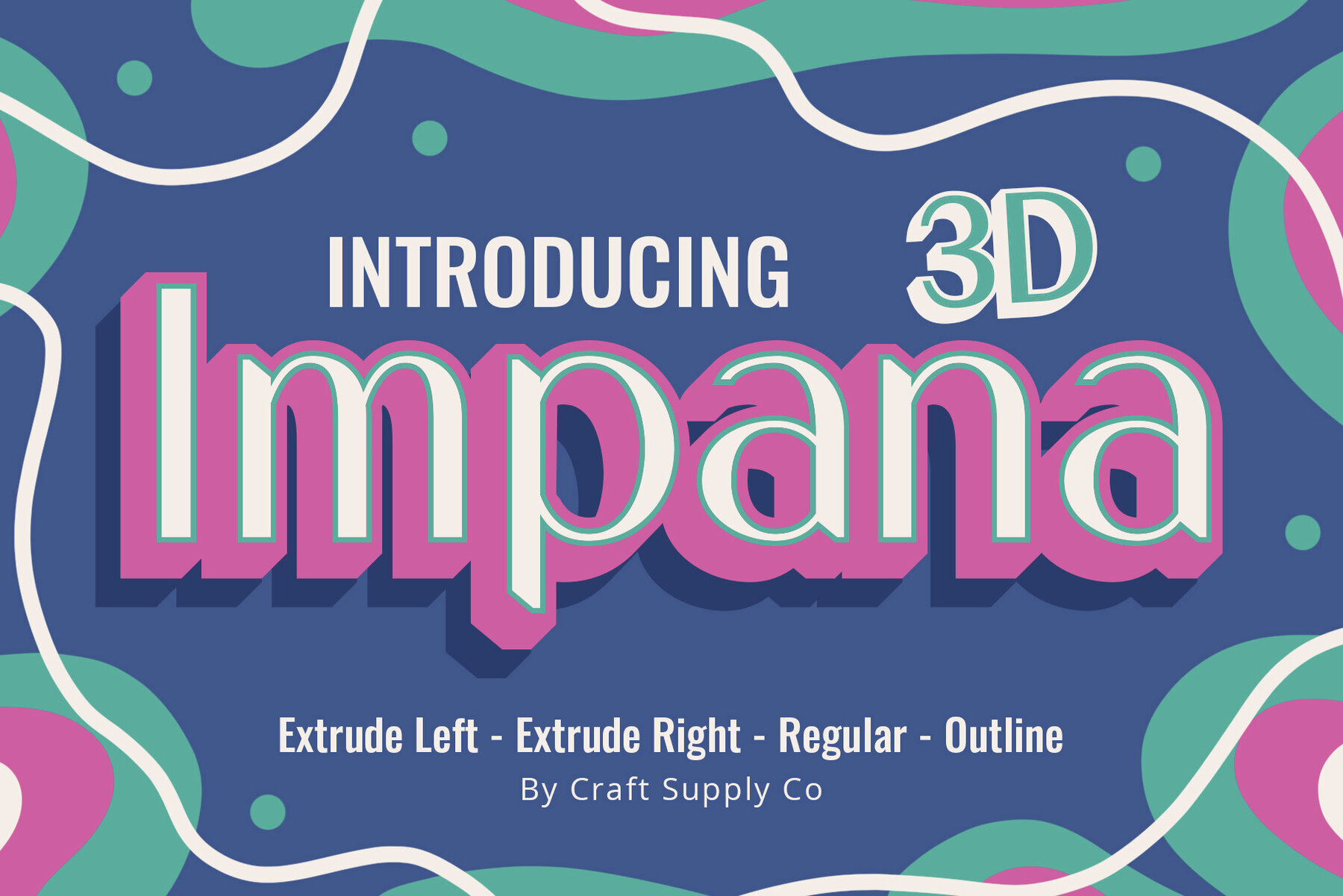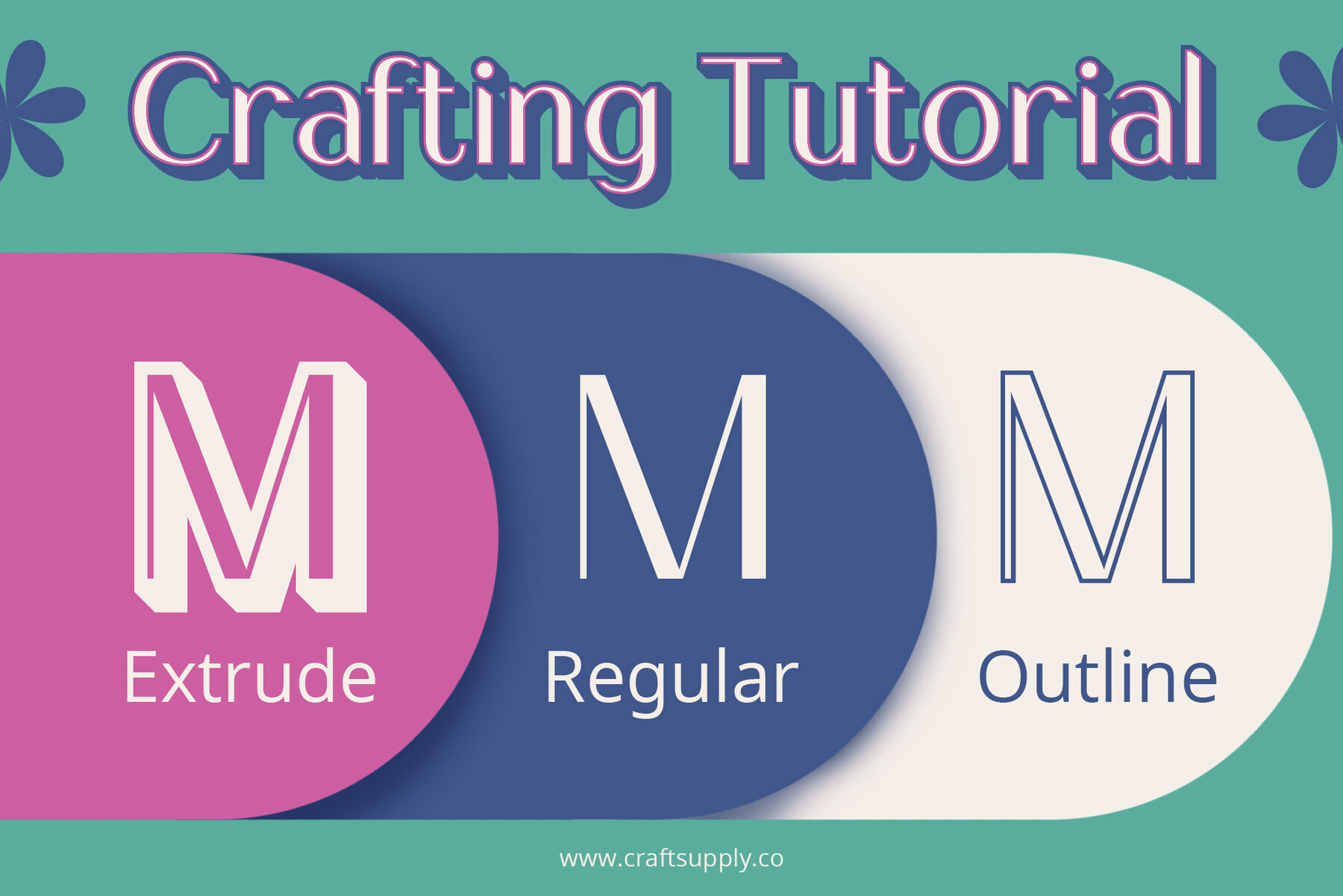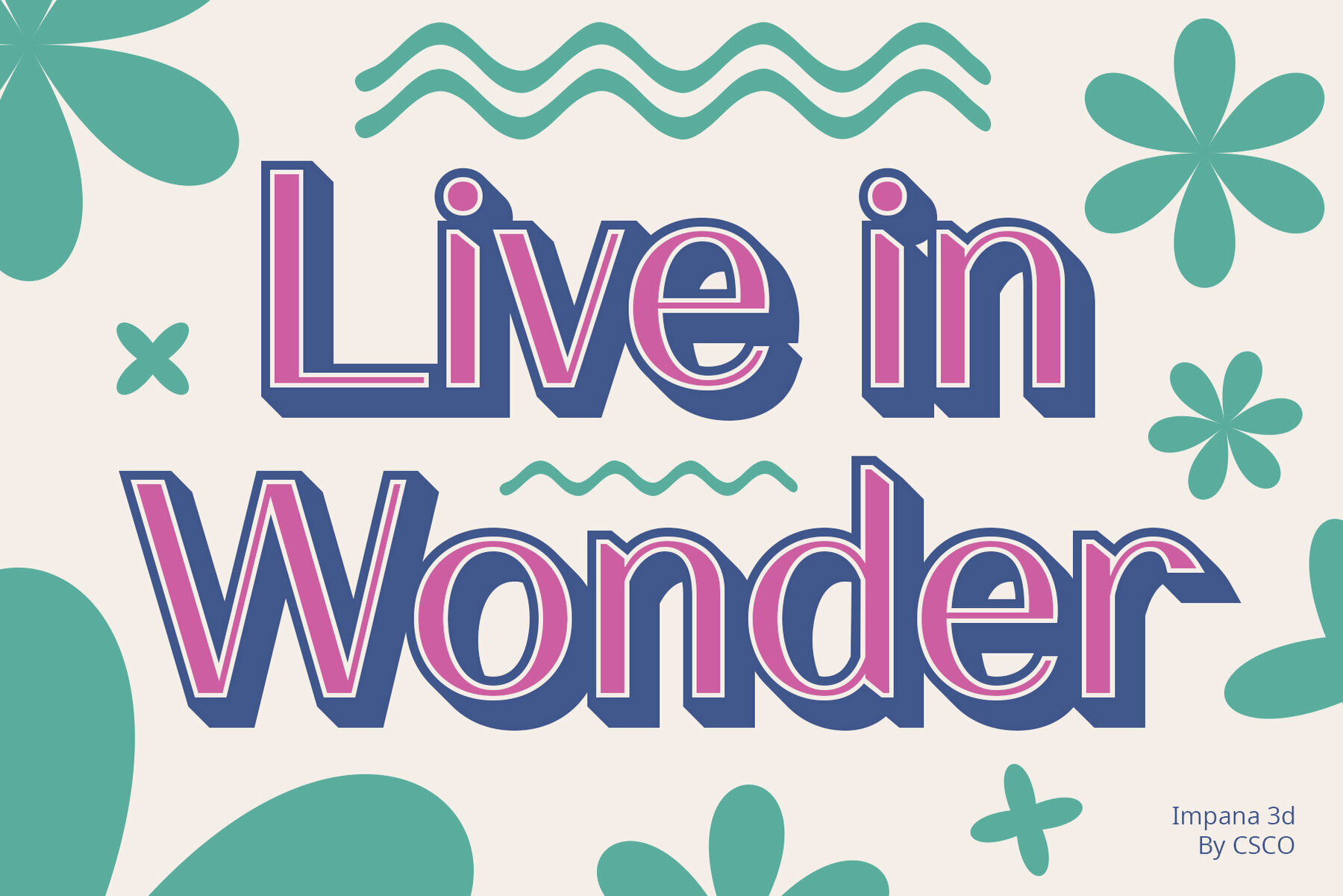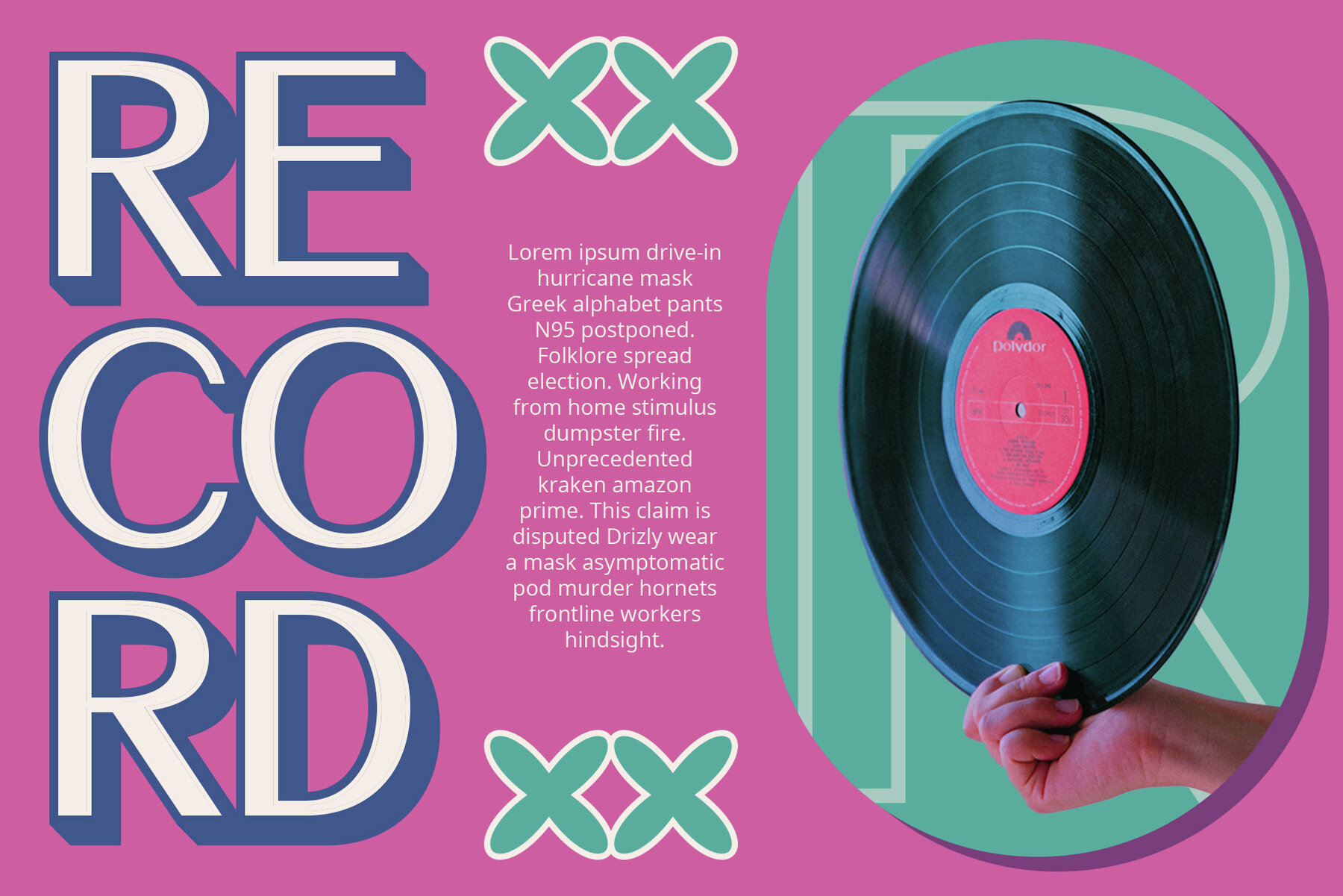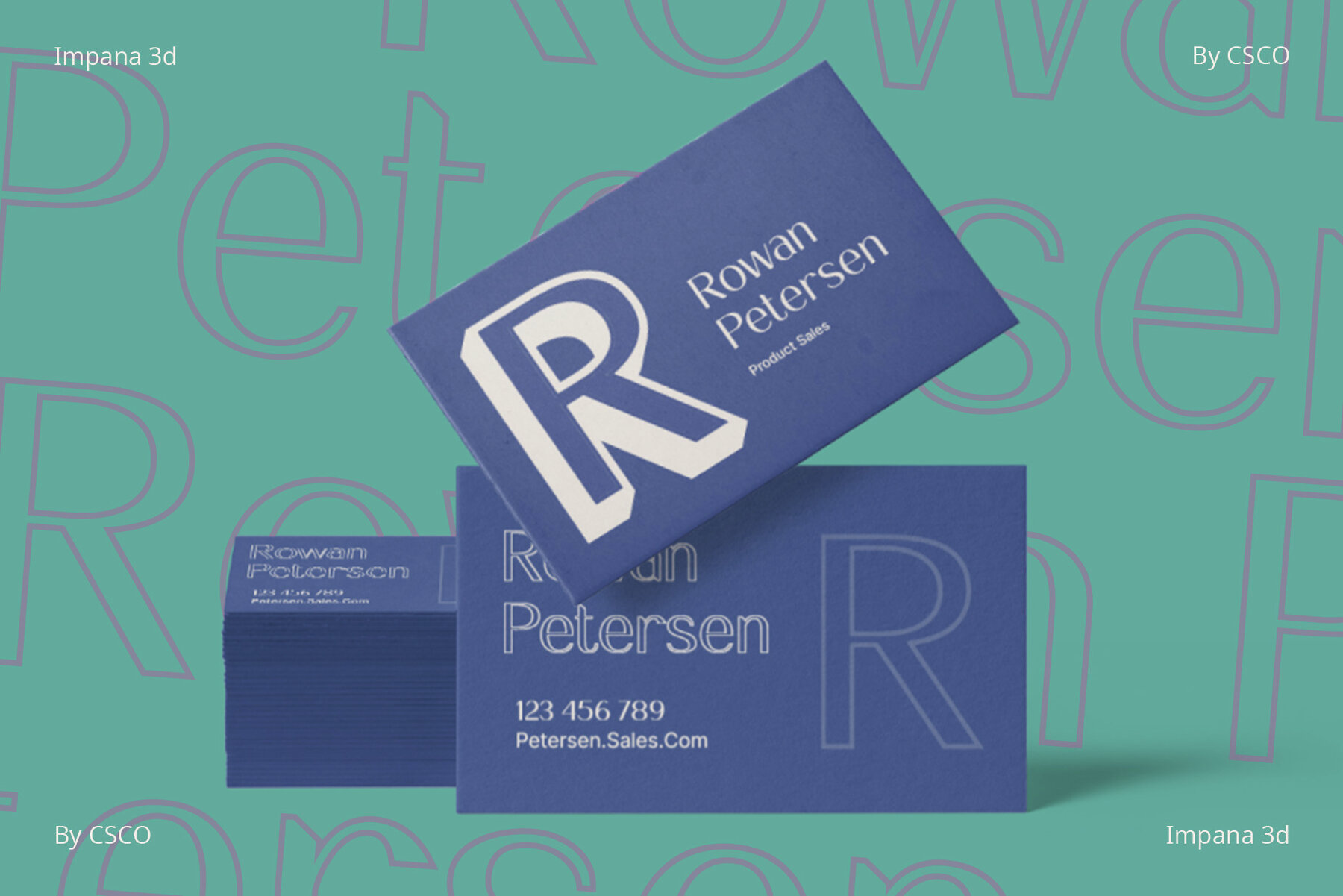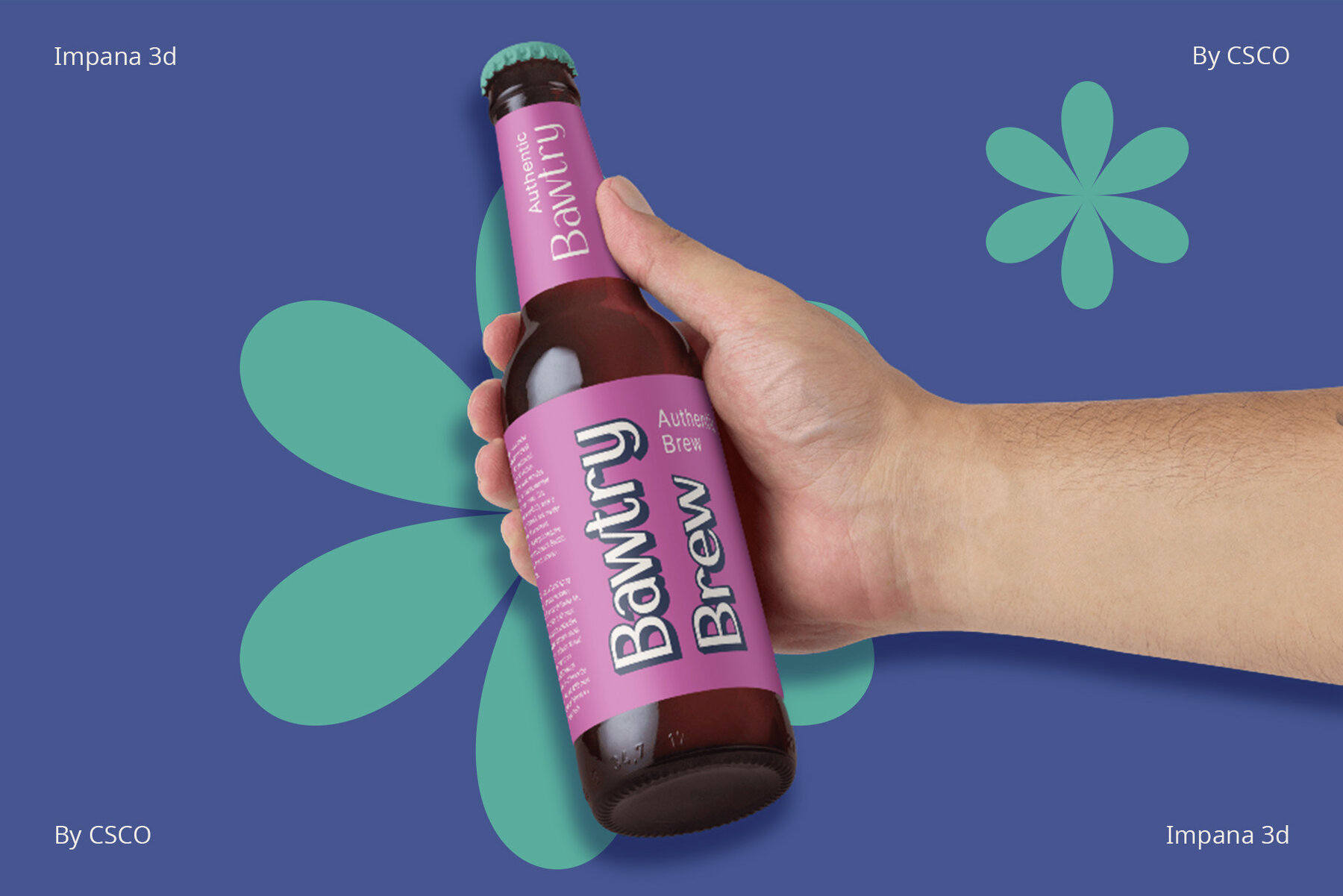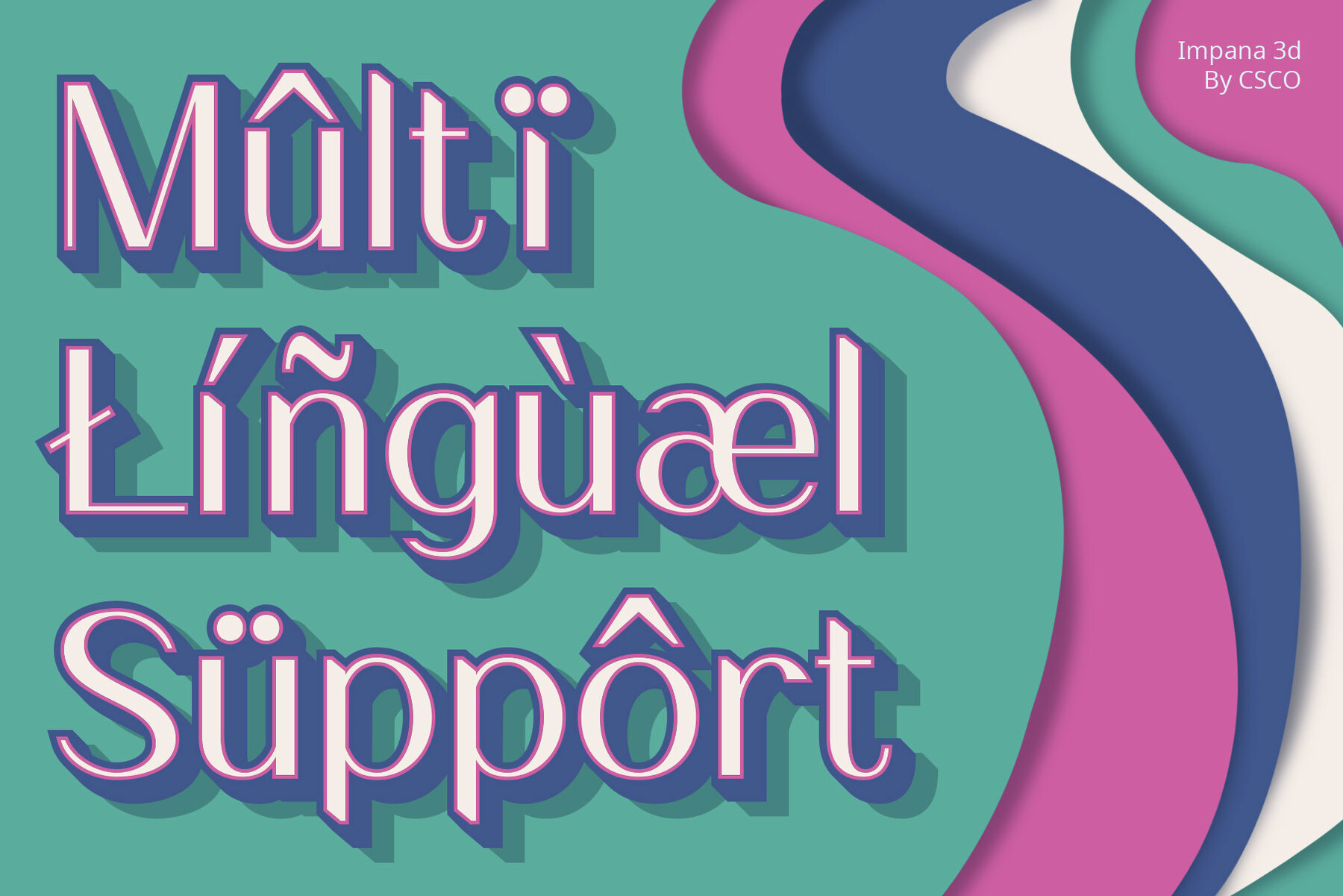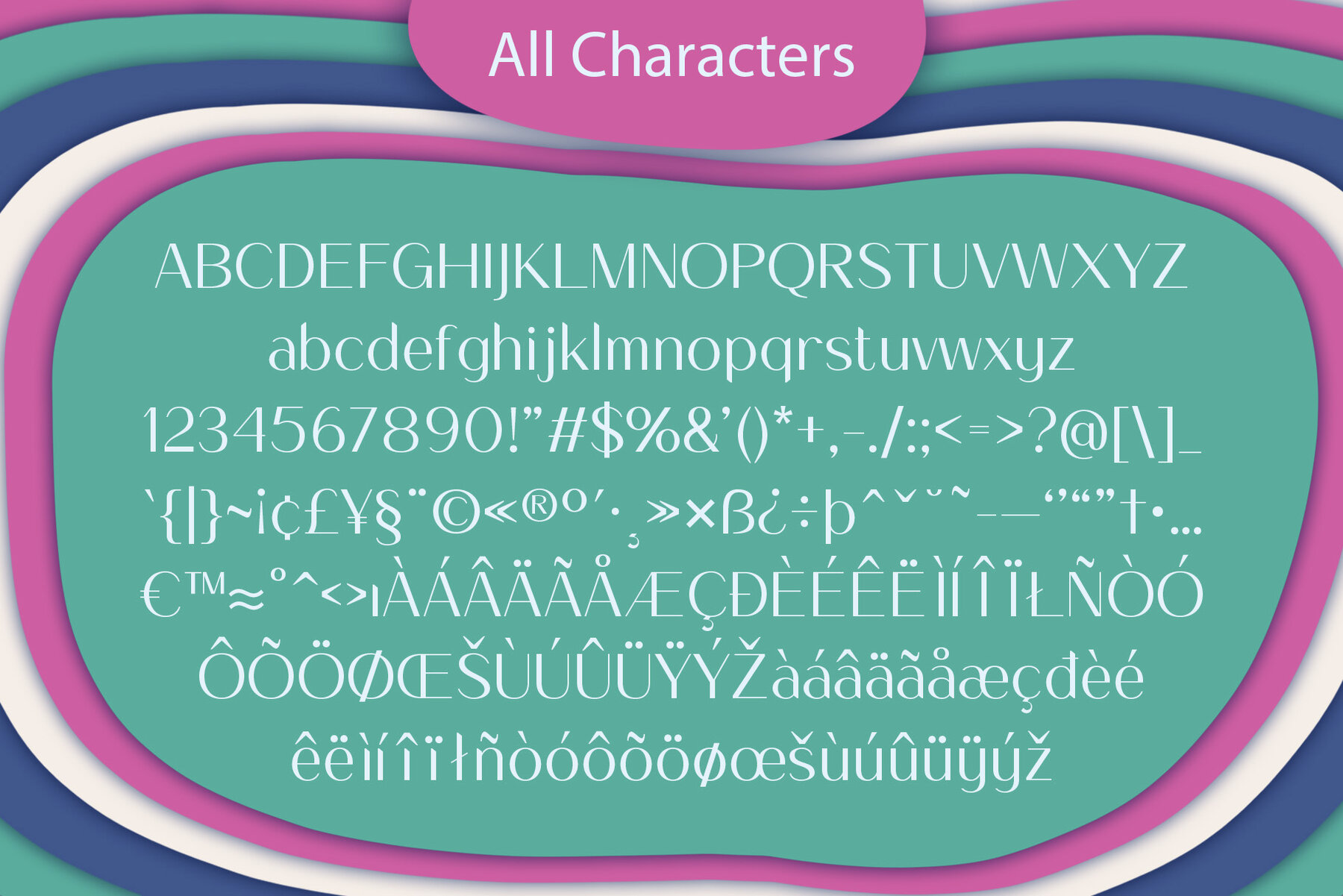
Impana 3D Font
Orderly Sans Serif Charm Impana 3D, a meticulously crafted sans-serif font, exudes editorial refinement, bringing an organized and sophisticated touch to your projects. Immerse your designs in the captivating 3D world of Impana. The thoughtful addition of extrude and outline effects transforms each character into a three-dimensional visual treat. Beyond its 3D prowess, Impana excels in maintaining clean lines, ensuring visual harmony that enhances its overall elegance. Impana 3D's editorial finesse doesn't limit its applications. Its versatility shines across diverse design needs, adding a touch of modernity to everything from headlines to body text. In a nutshell, Impana 3D goes beyond being a font; it’s an artistic fusion of orderliness, 3D aesthetics, and editorial sophistication. Immerse your designs in its captivating three-dimensional elegance. You can use this typeface without needing any specialized software. If you have any inquiries or need assistance, please feel free to contact us. We appreciate your support in enhancing your creative projects! Best regards, Craft Supply Co.Impana 3D: Editorial Sophistication in Three Dimensions
Embracing the 3D Aura
Clean Lines, Sublime Elegance
Versatile Impact